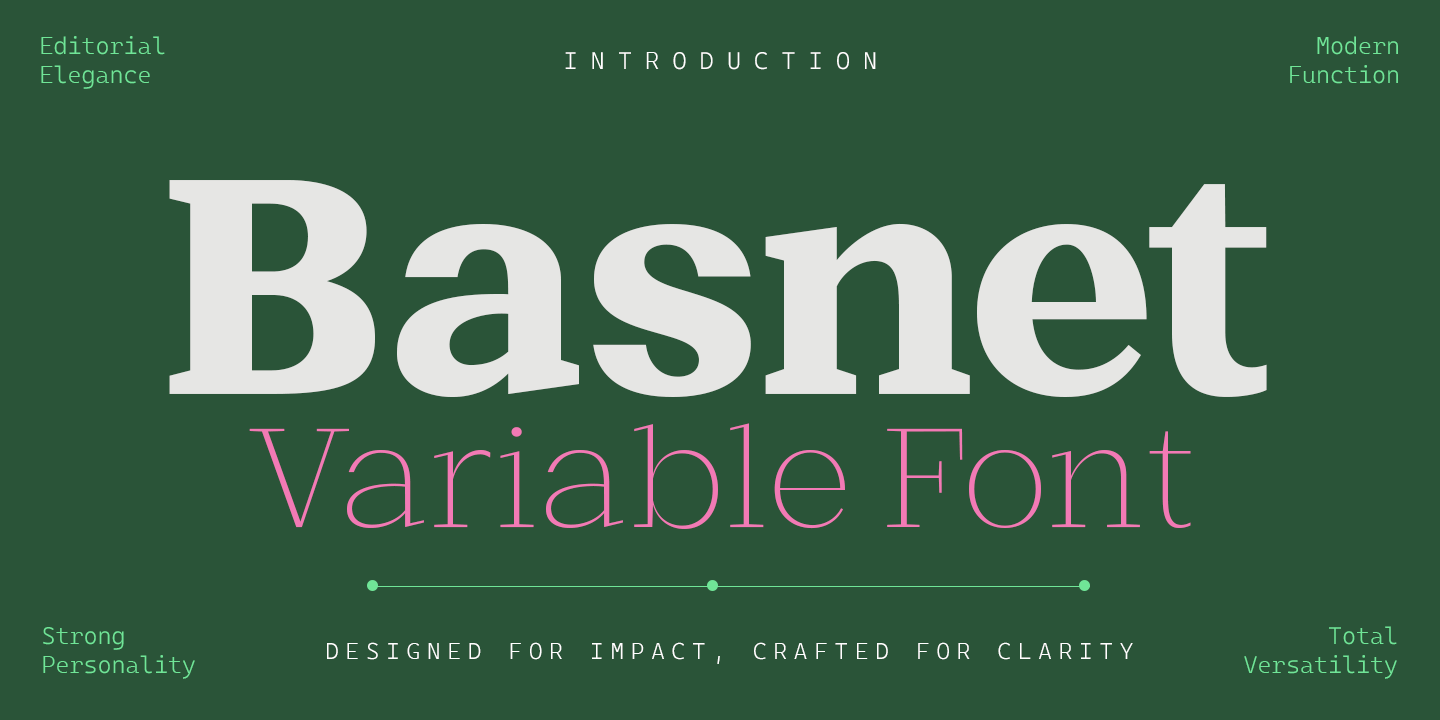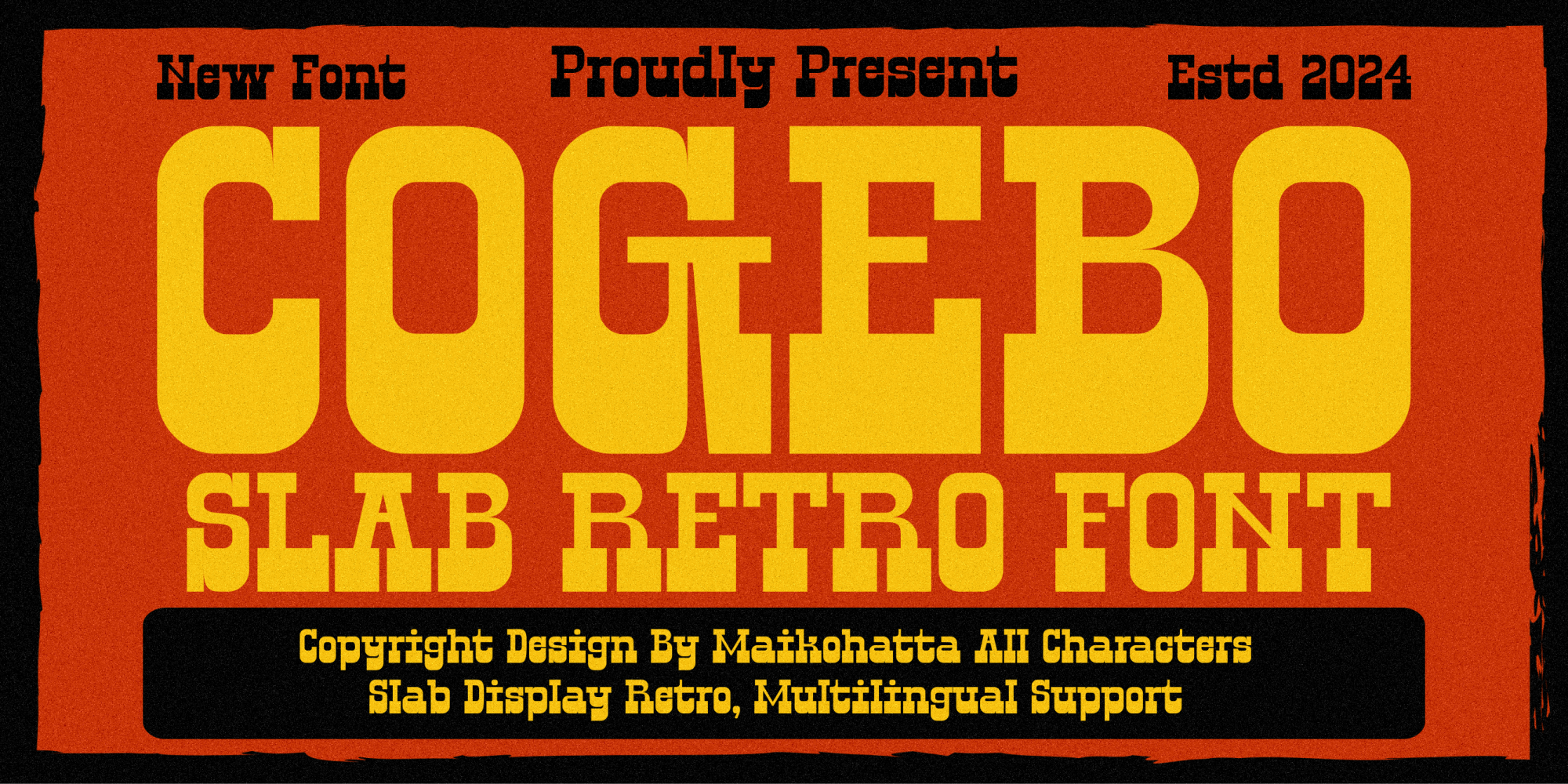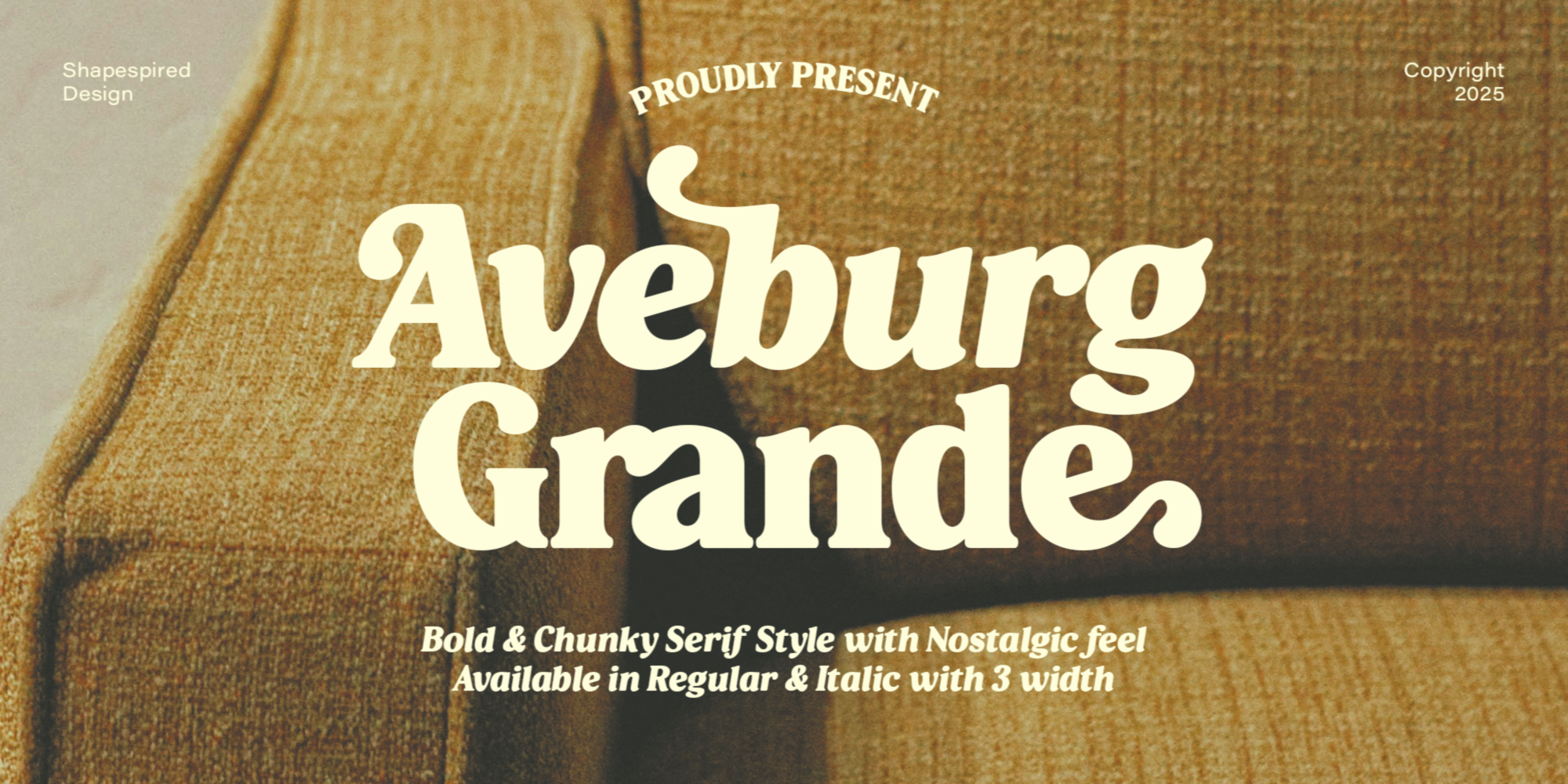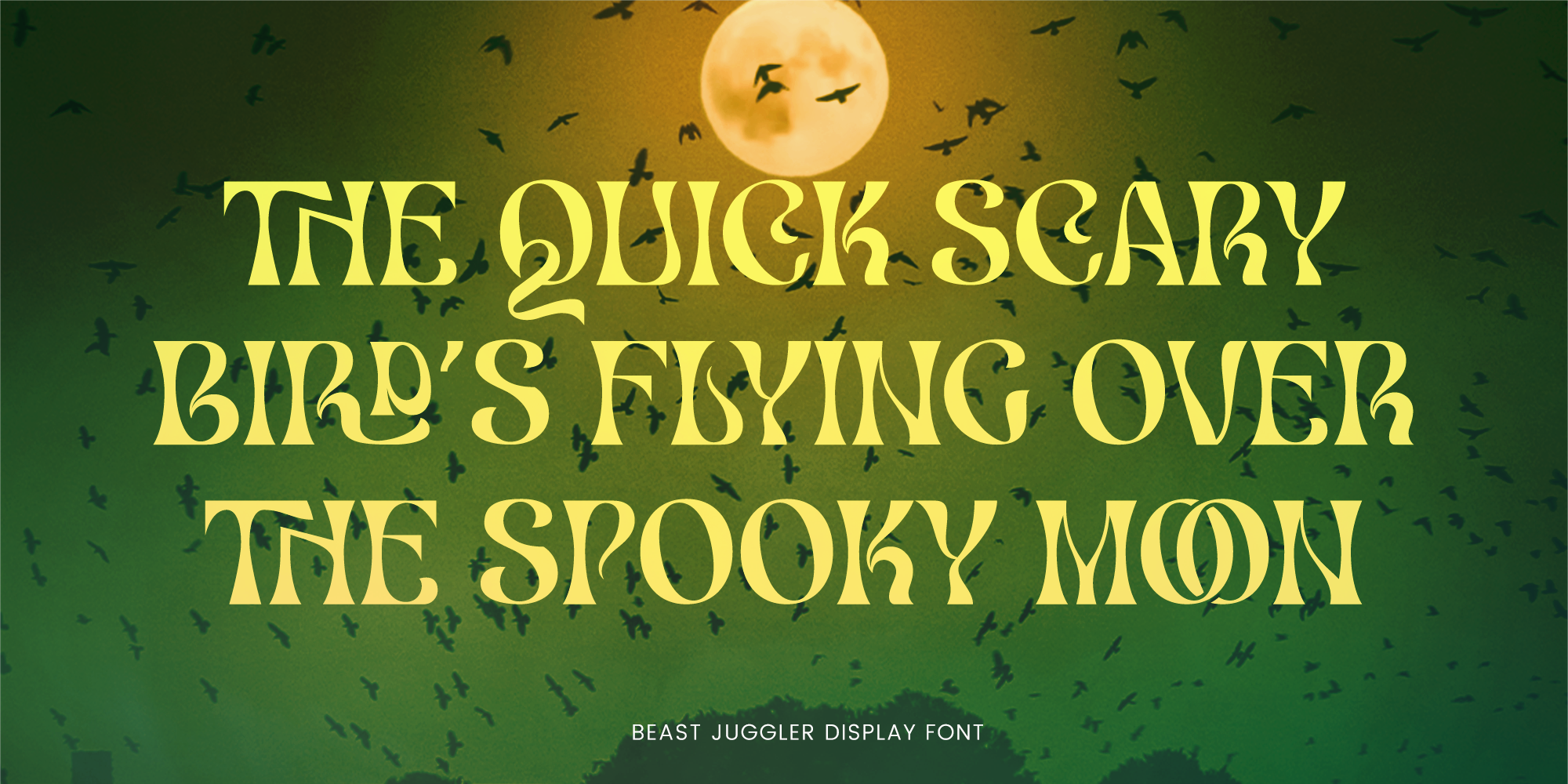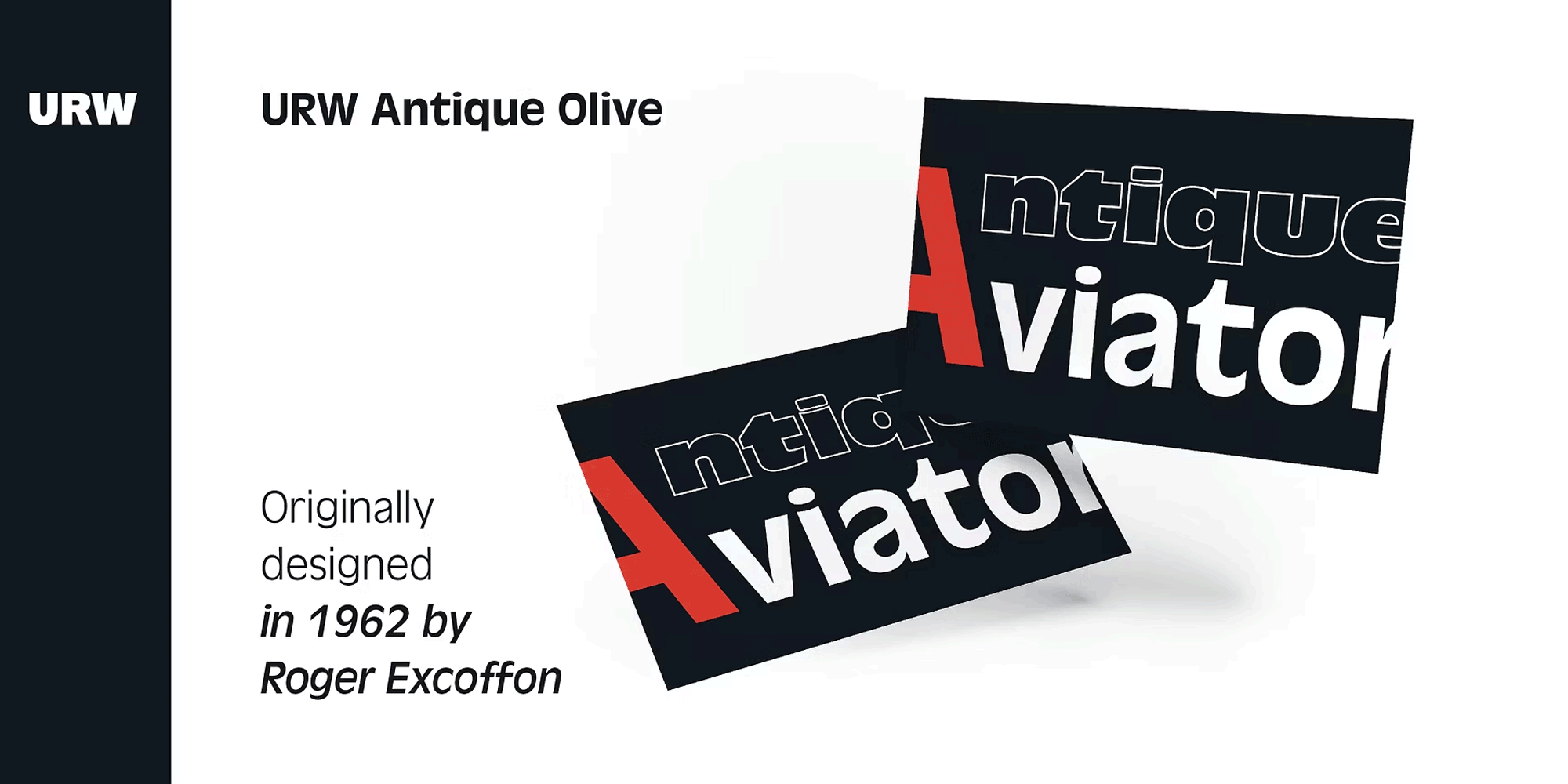
Struggling to find a font that balances traditional elegance with contemporary precision? Basnet is the perfect answer.
This transitional serif typeface solves your design needs by offering clean lines and impeccable proportions, elevating your projects to professional standards. From luxury branding to upscale content and corporate identities, Basnet ensures your creations are both captivating and polished. Let Basnet bring the refined sophistication your designs deserve. 108 fonts for $73 | |
Fonts can feel cold and unapproachable and sometimes it can be a struggle to find a typeface that adds warmth while maintaining a modern aesthetic. Beround Pro solves this. Its smooth, rounded shapes radiate friendliness and professionalism, effortlessly adapting to your projects. From branding to marketing, Beround Pro offers the perfect balance of style and adaptability. Don't let outdated fonts limit your vision—choose Beround Pro and watch your work transform. 16 fonts for $458.99 $321.29 | |
Redefine Your Designs with Timeless Style. Classic elegance meets contemporary style with Antique Olive. This iconic font, crafted by Roger Excoffon, aimed to challenge fonts like Helvetica and Univers. It succeeded in defining its own space with unmatched distinction. Whether you're creating bold headlines or sophisticated displays, Antique Olive ensures that your designs command attention and admiration. Its timeless appeal makes it a must-have for any designer looking to make a lasting impression. Add Antique Olive to your design arsenal today. 16 fonts for $104.99 | |
| | Cogebo | Lively Character & Charming
Ideal for children's books, party invitations, and whimsical branding. Sure to bring a smile to your audience's face. | | | | |
| | Aveburg Grande | Bold, Chunky & Nostalgic
Vintage editorial charm, clean lines of mid-century style, and the classic allure of typography that never goes out of style. | | | | |
| | Beast Juggler | Unique & Bold Flair
Bring personality to your projects, from vivid posters to standout logos, this font adapts seamlessly. Every creation will tell a story. | | | | |